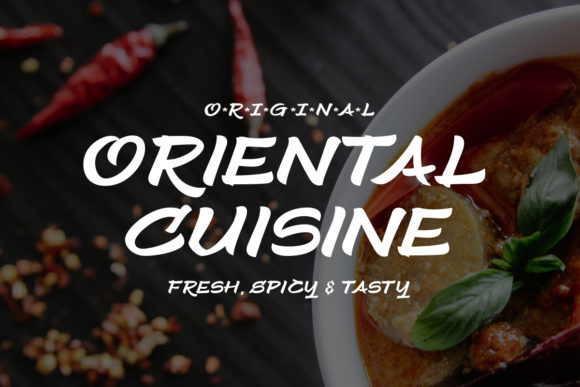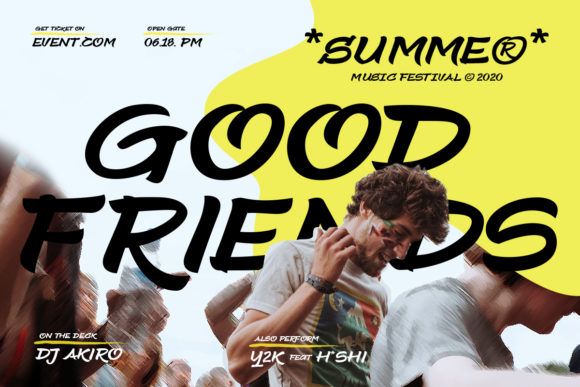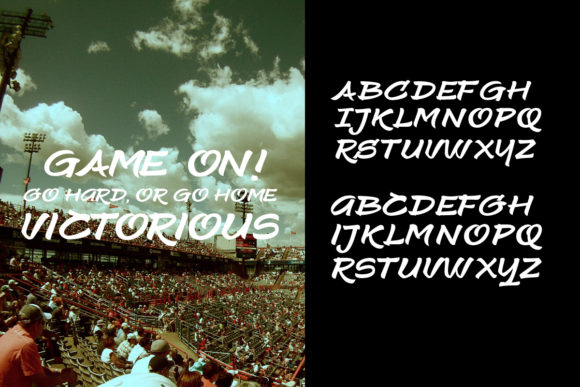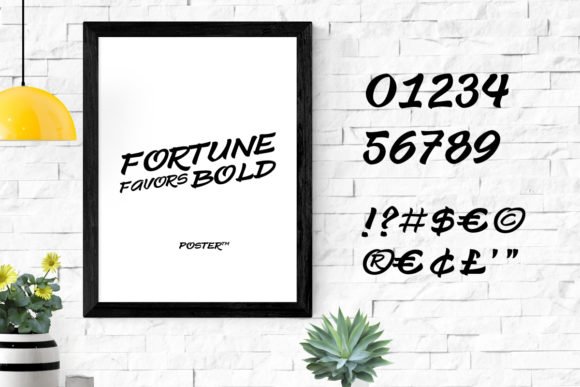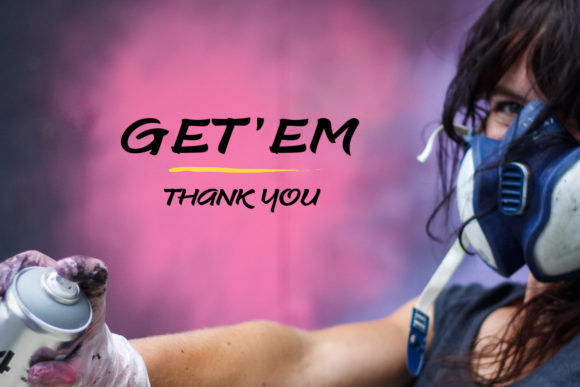
Introduction to Silkystring Font
As a designer, there’s nothing quite like the thrill of bringing a creative project to life. You’ve spent hours brainstorming, sketching, and perfecting every detail – and then, it happens: that one moment when all the elements come together in perfect harmony. For me, that moment was when I stumbled upon the Silkystring Font. Its unique blend of brush pen and pencil strokes captured the essence of hand-drawn charm, elevating my DIY project to new heights.
With its high-quality design and transparent background, Silkystring Font is a game-changer for any creative project. Whether you’re a seasoned designer or a DIY enthusiast, this gorgeous font is sure to add a touch of authenticity to your work. And the best part? It’s available for free download, making it an invaluable resource for designers of all levels.
Key Features of Silkystring Font
- High-quality font design with a unique, elegant feel, perfect for creative projects.
- Transparent background, allowing for easy customization and blending with other design elements.
- Designed with precision and attention to detail, resulting in a professional and polished look.
Honest Review: Silkystring Font
As a designer, I’m always on the lookout for high quality design resources to enhance my creative projects. The Silkystring Font caught my eye, and I decided to give it a try.
- ✨ Unique and elegant design aesthetic
- ✨ Excellent legibility, even on a transparent background
- ⚠️ Limited font weights and styles
- ⚠️ Not ideal for use in small text sizes
Overall, I’m impressed with the Silkystring Font. While it may not be the most versatile font, its unique design and excellent legibility make it a great addition to any design project. The free download option is a definite plus, and I appreciate the transparency of the font’s licensing terms.
Tips for Getting the Most Out of Silkystring Font
For the best results, use Silkystring Font with a high contrast background to make the text stand out. You can also experiment with different font sizes and styles to add visual interest to your design.
Silkystring Font is perfect for creative projects that require a unique and eye-catching font. It’s great for use in logos, branding materials, and other design elements where a high quality, transparent background is desired.